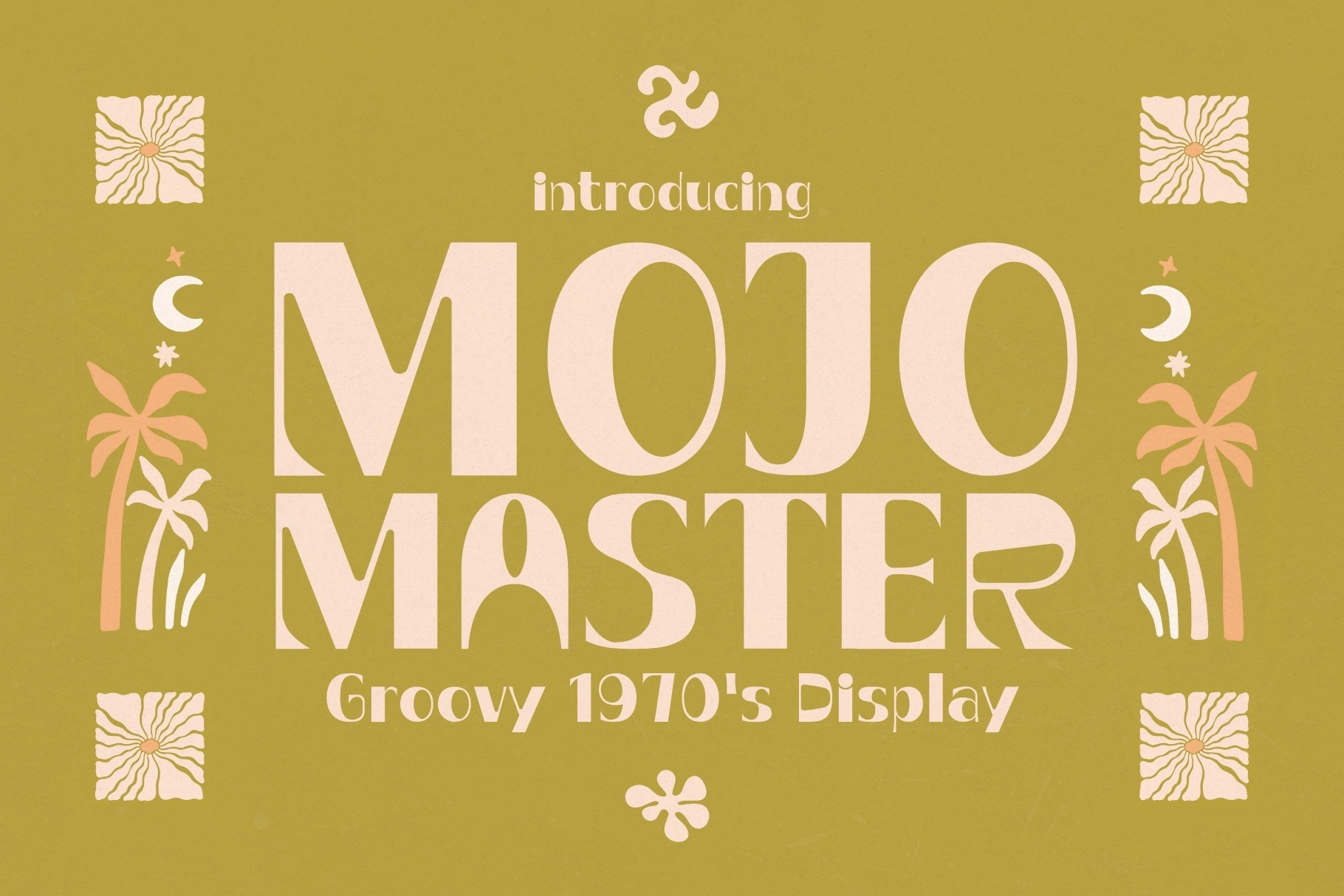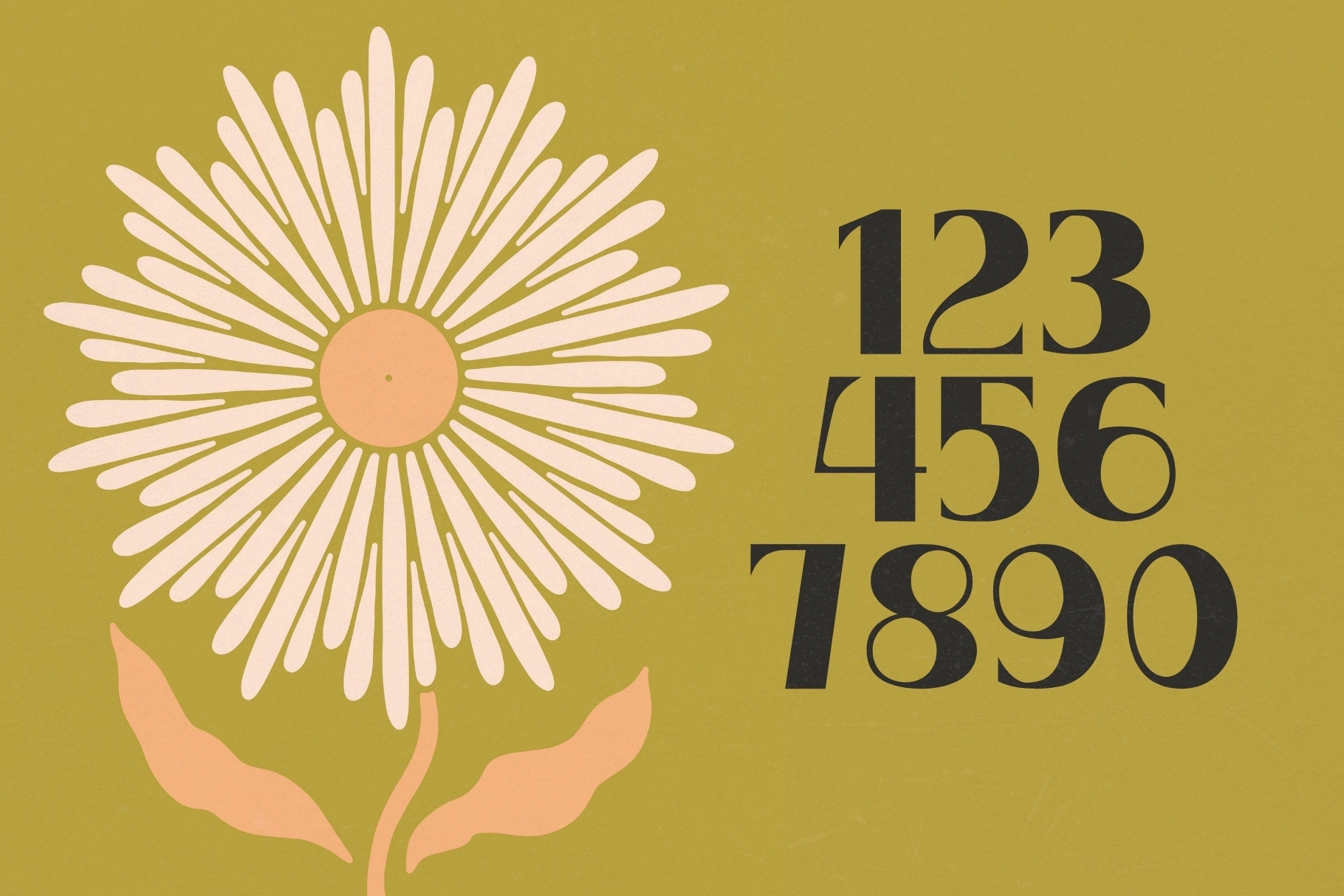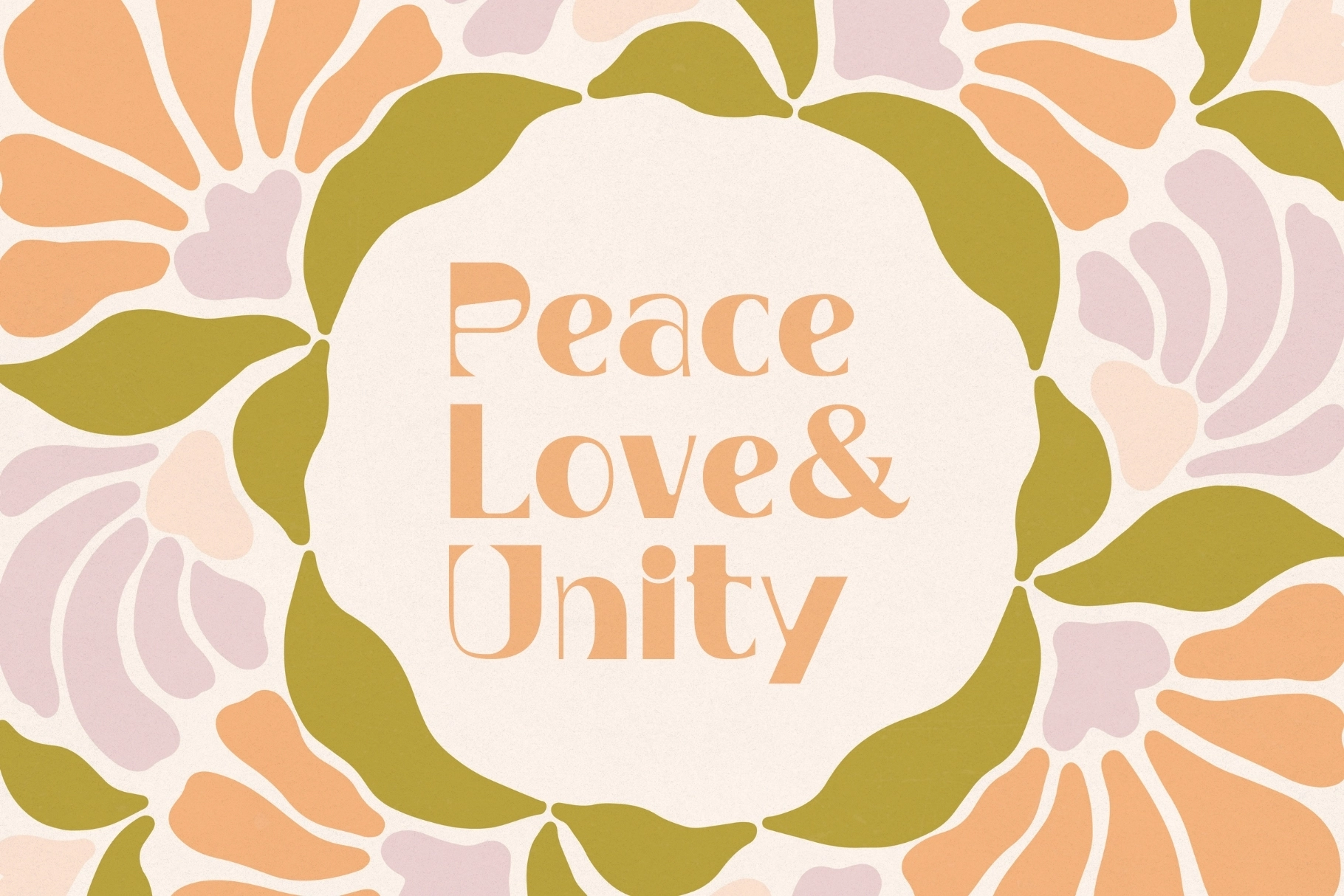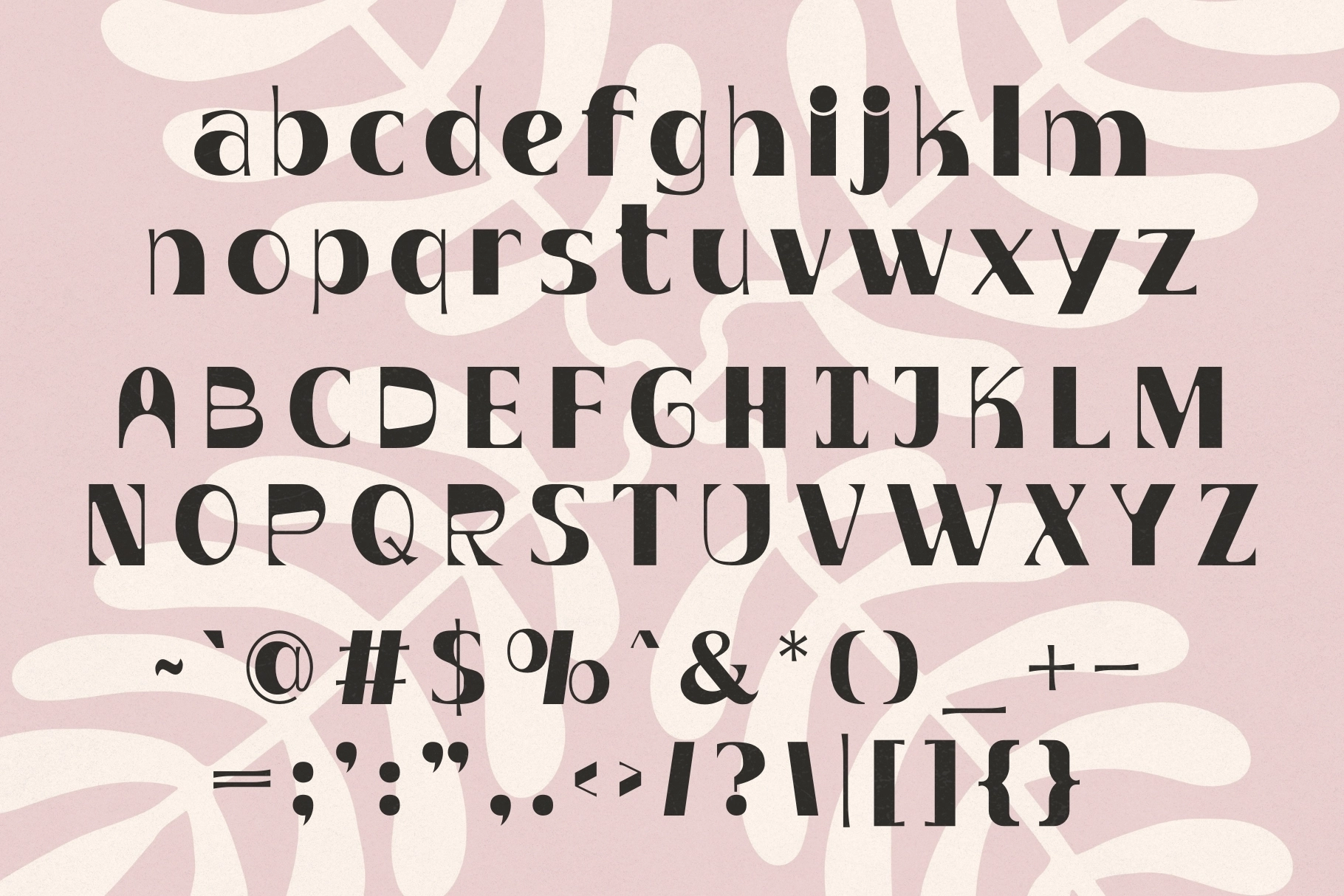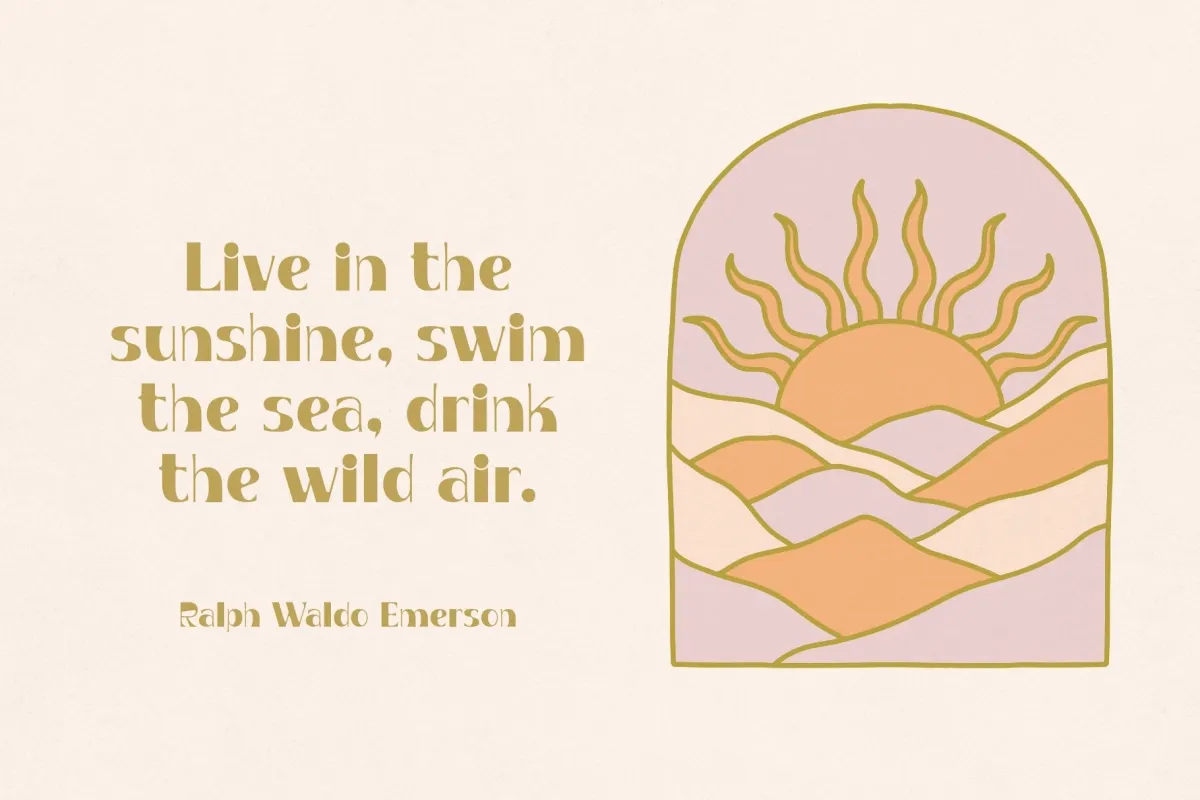
Mojo Master - Groovy 1970's Font
Mojo Master is a groovy, organic display typeface inspired by 1970s counterculture, hand-drawn lettering, and the free-spirited energy of the peace movement. Flowing curves, soft edges, and rhythmic letterforms give this font a warm, human feel that instantly channels peace, love, unity, and good vibes.
Designed with personality at its core, Mojo Master blends bold retro charm with playful imperfections. The letters feel alive and expressive—never rigid—making the font perfect for designs that celebrate creativity, individuality, and soul. It’s nostalgic without feeling dated and expressive without sacrificing readability.
Perfect for posters, album covers, apparel, packaging, festival branding, wellness brands, social media graphics, stickers, and retro logos, Mojo Master brings authentic 70s energy to modern design. If your project needs warmth, groove, and positive energy, this font delivers pure mojo.